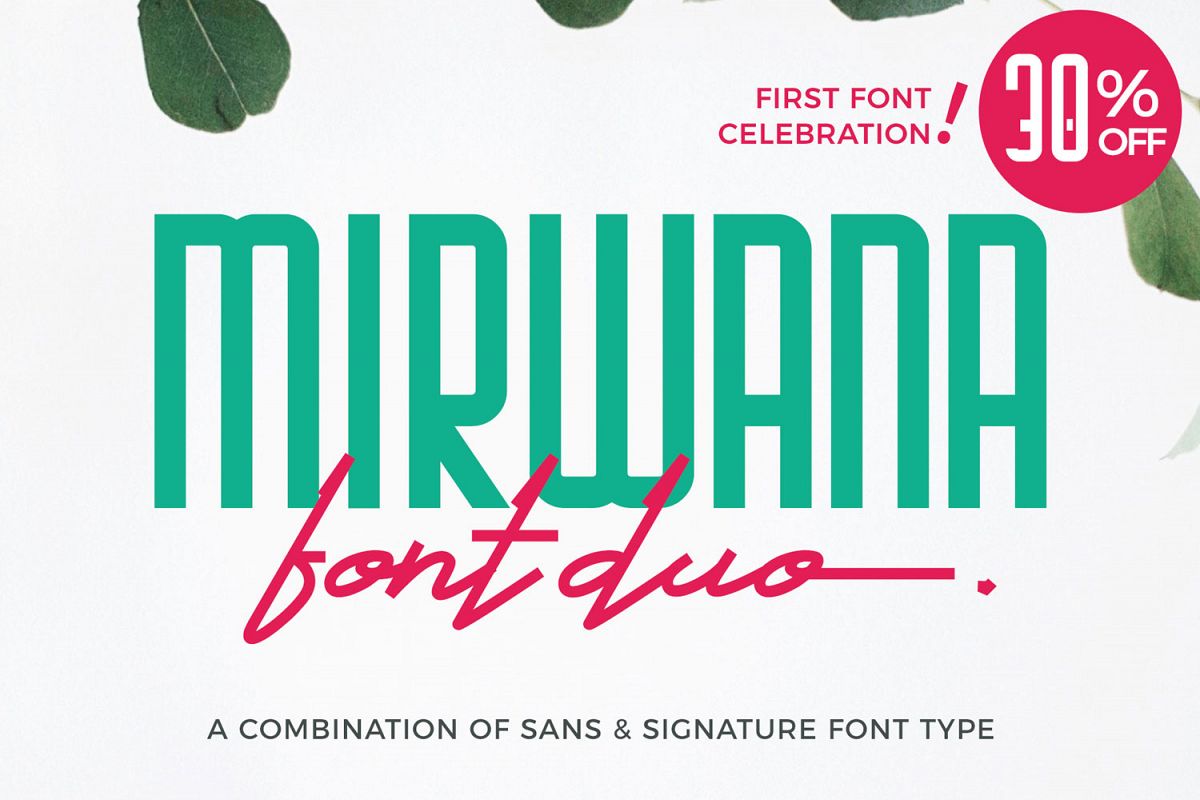
Mirwana Font Duo
Introducing : Mirwana Font Duo | The combination of Sans and Signature fonts!
Mirwana Font Duo will be perfect for many different projects such as logos & branding, invitation, stationery, wedding designs, social media posts, advertisements, product packaging, product designs, label, photography, watermark, special events or anything that need handwriting taste.